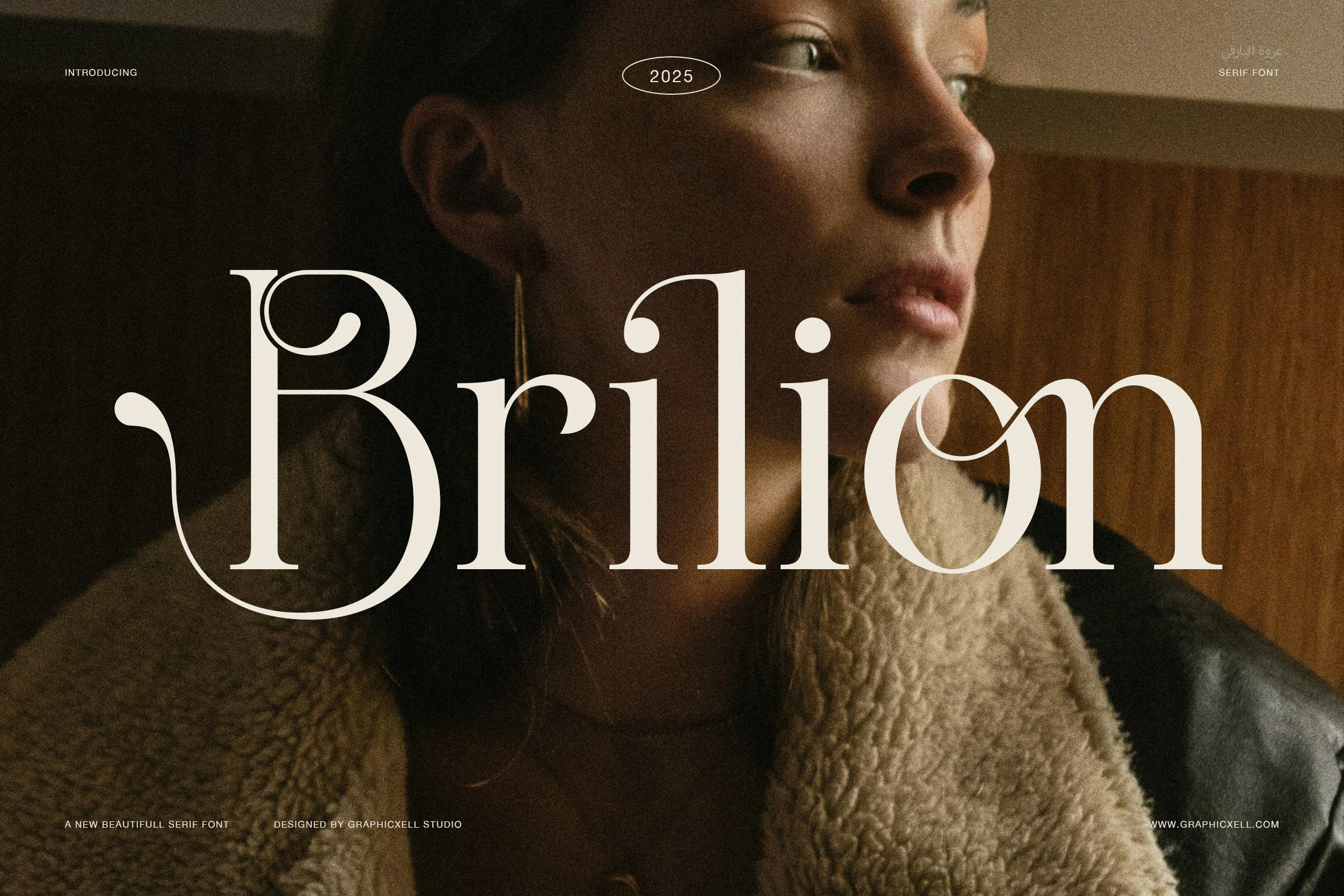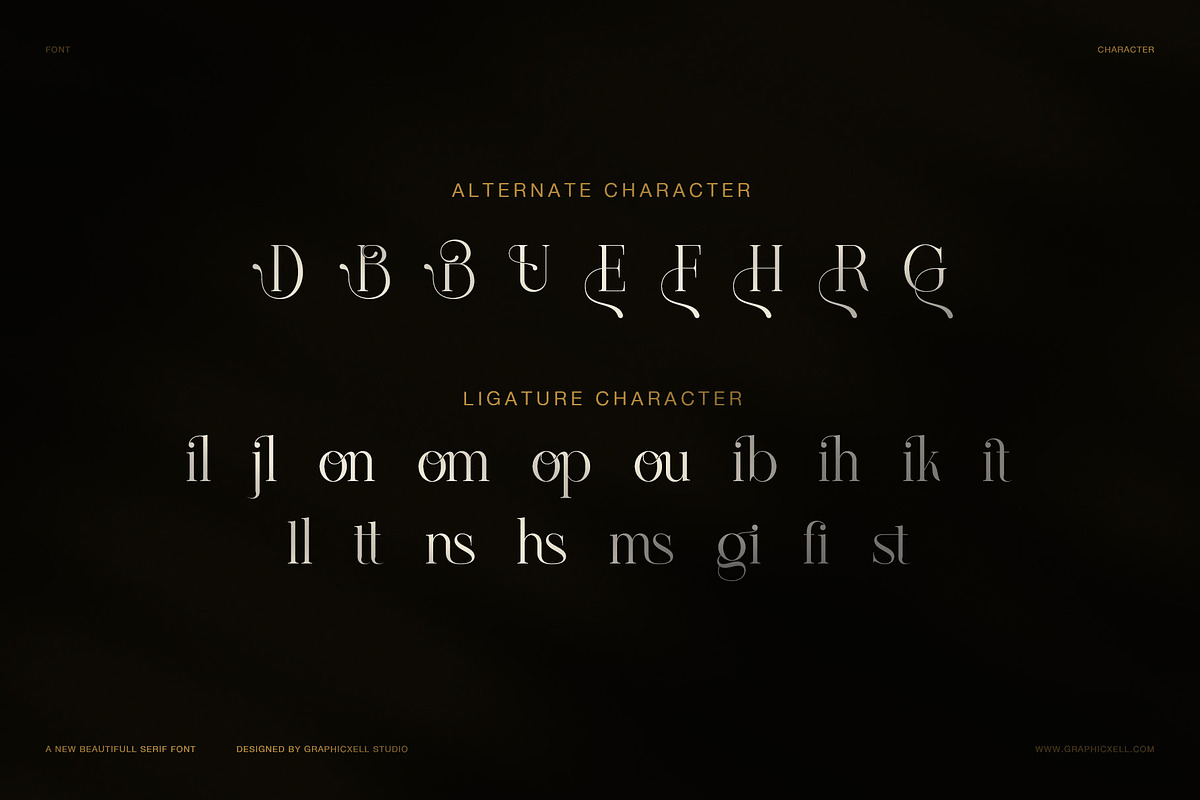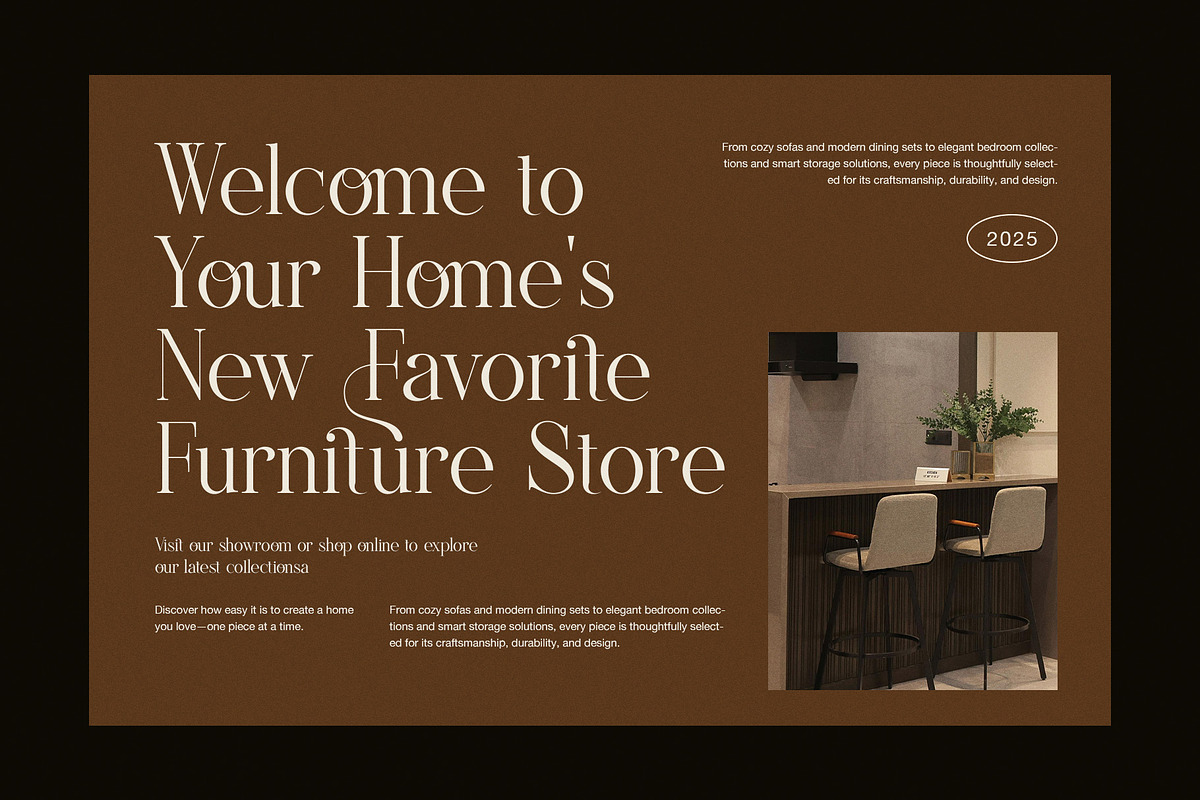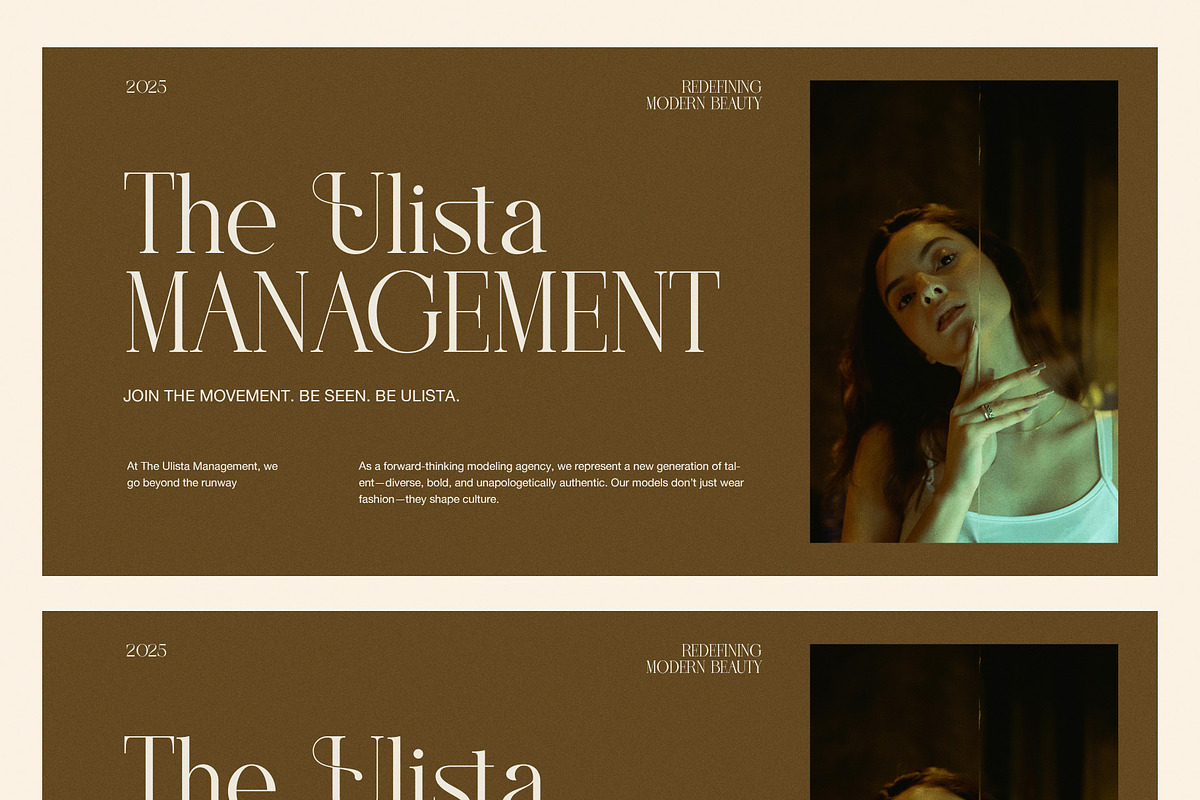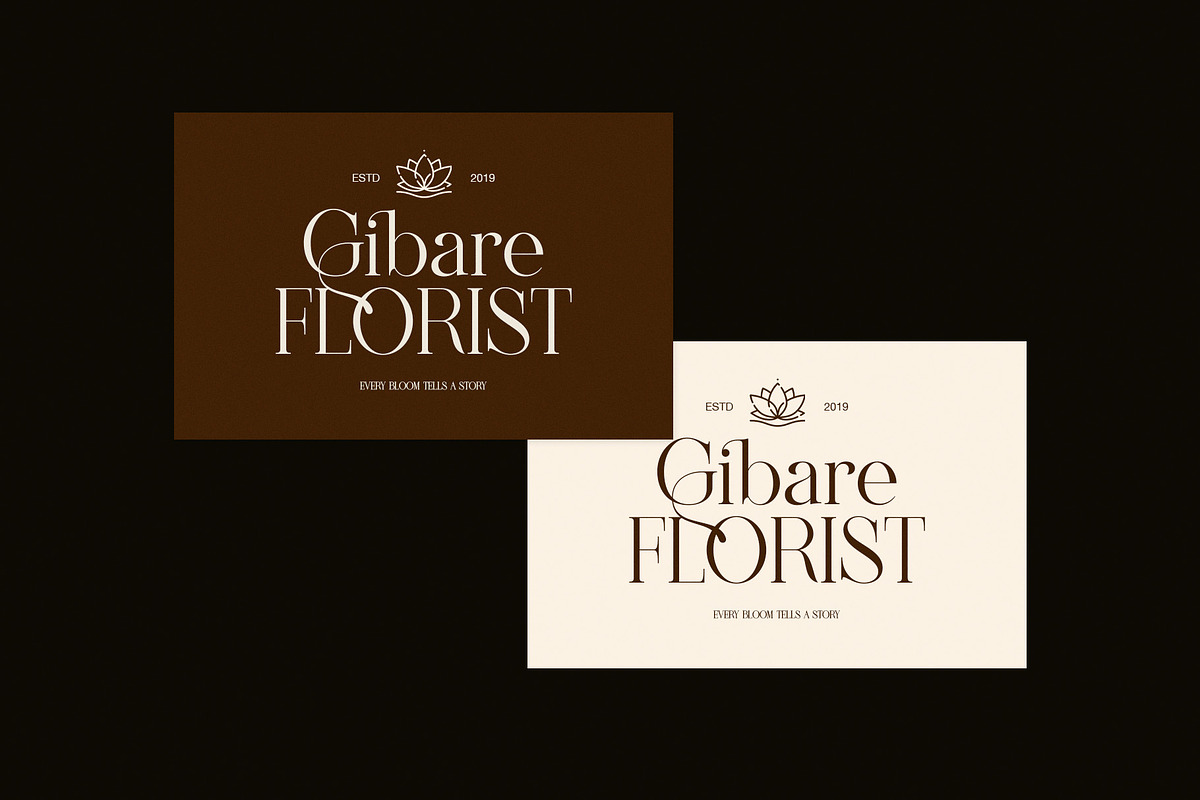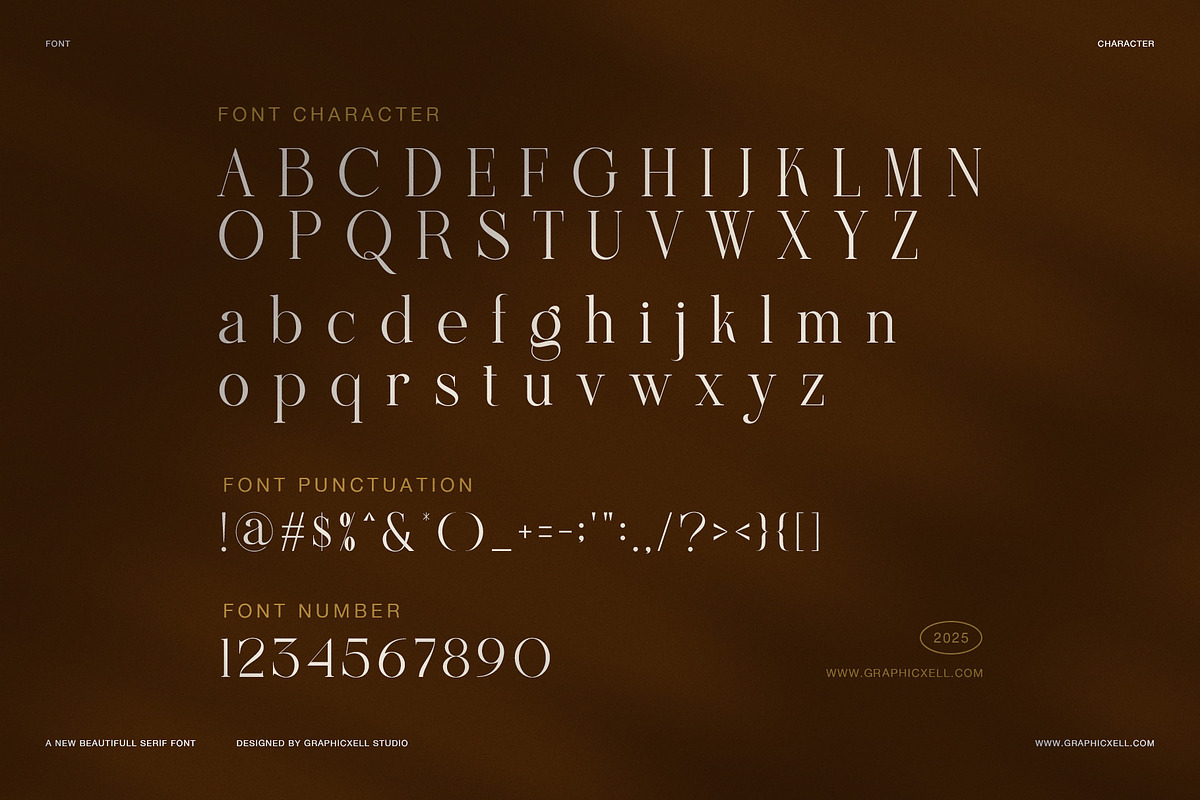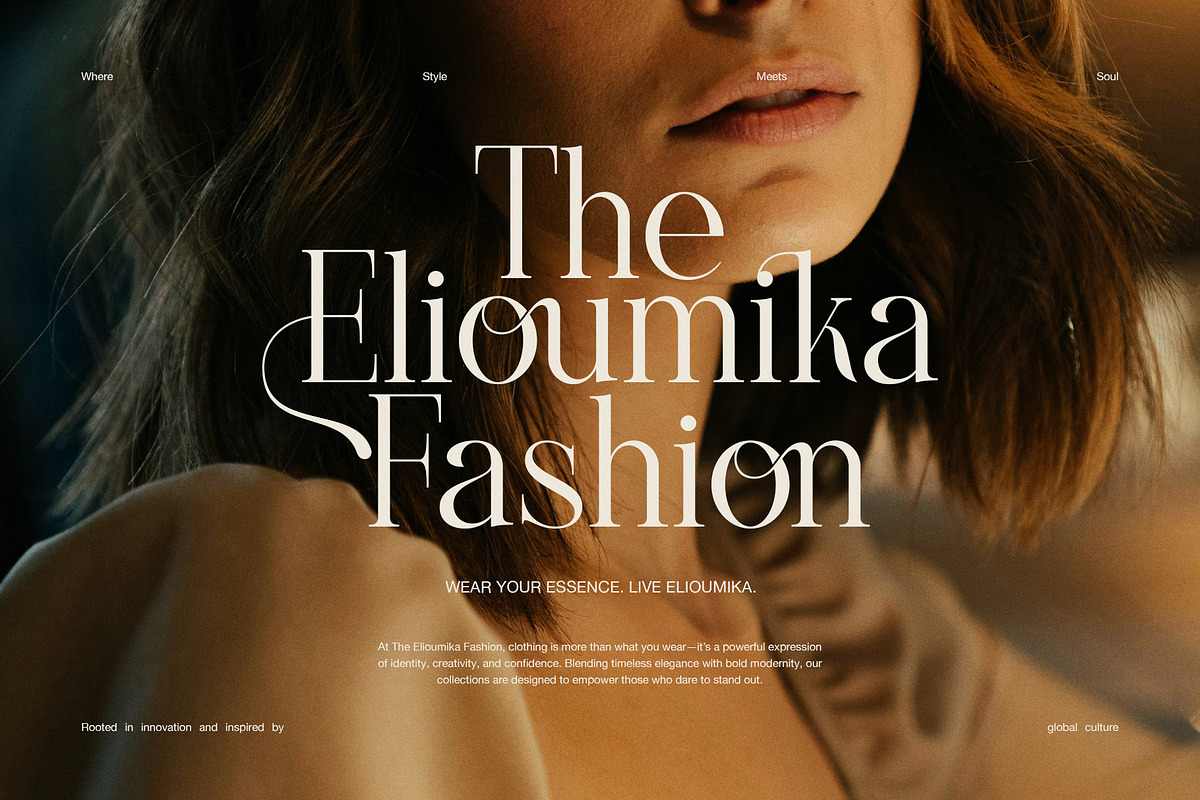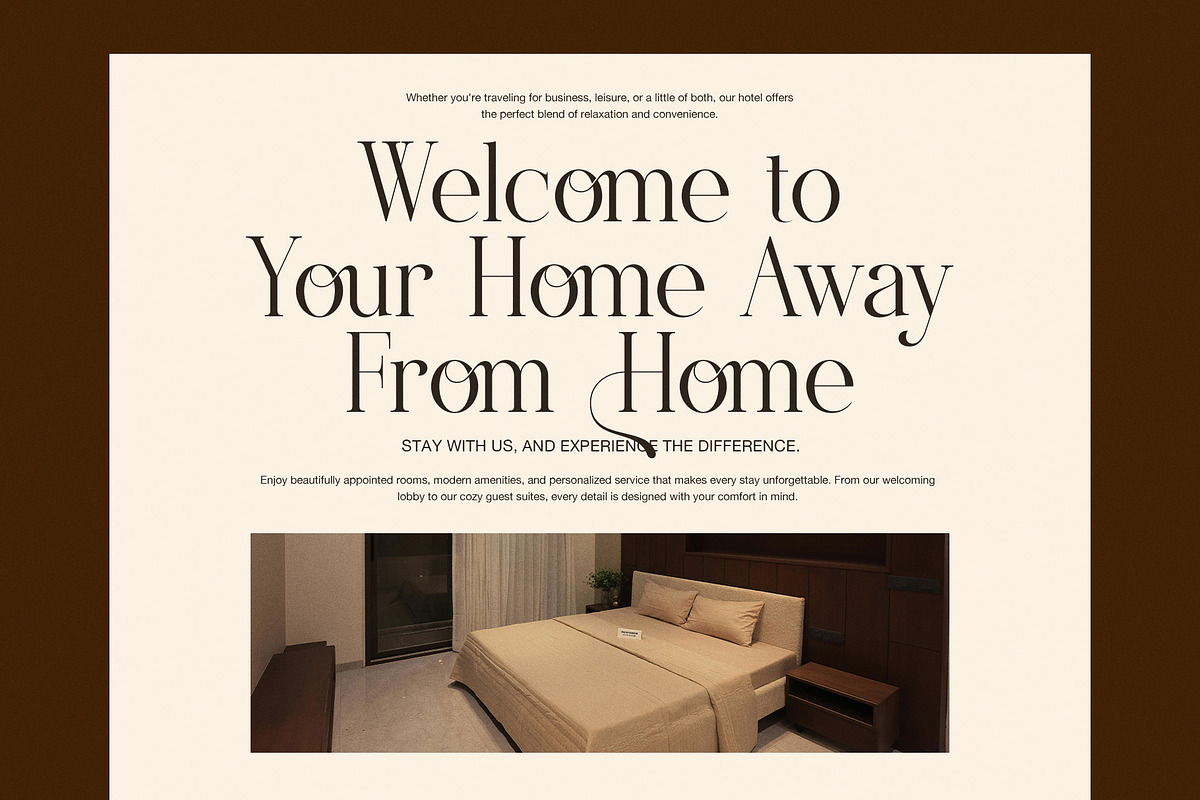
Brilion Elegant Serif Font
Brilion Elegant Serif Font is a graceful typeface made to blend timeless beauty with modern simplicity. It offers smooth lines, gentle curves, and a clean structure that adds luxury to any design. Because of its balanced look, this serif font fits beautifully in branding, wedding stationery, magazines, and product packaging.
Every letter in Brilion has a natural rhythm that feels soft and polished. The smooth flow between thin and thick strokes makes it elegant yet easy to read. In addition, the subtle contrast gives it personality without looking heavy. Therefore, it works well for both long text and big titles.
Brilion includes uppercase and lowercase letters, numbers, punctuation, and stylish alternates. It also features ligatures and multilingual support, so you can use it for many creative projects. As a result, designers can add a touch of class while keeping their work simple and clear.
You can use Brilion for:
Brand logos and visual identity design
Elegant wedding invitations and event cards
Luxury packaging and product labels
Editorial headlines and fashion layouts
Social media content or website banners
This serif font was made to bring beauty and clarity together. It helps brands look refined while staying easy to read. Moreover, it adds warmth and confidence to every project. With its smooth spacing and delicate forms, Brilion creates a lasting impression wherever it appears.
In short, Brilion Elegant Serif Font turns simple words into stylish expressions. Because of its classic charm and modern grace, it’s the perfect font for designers who want elegance in every detail.